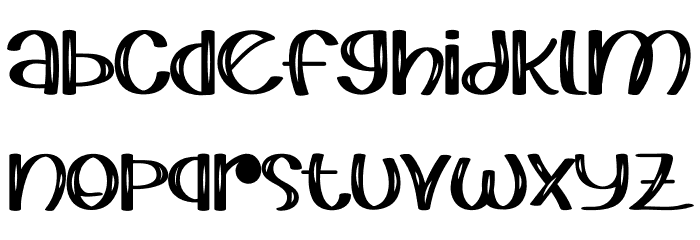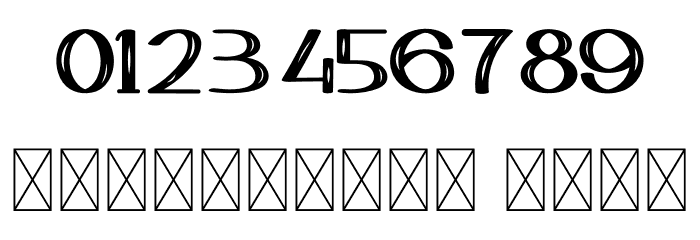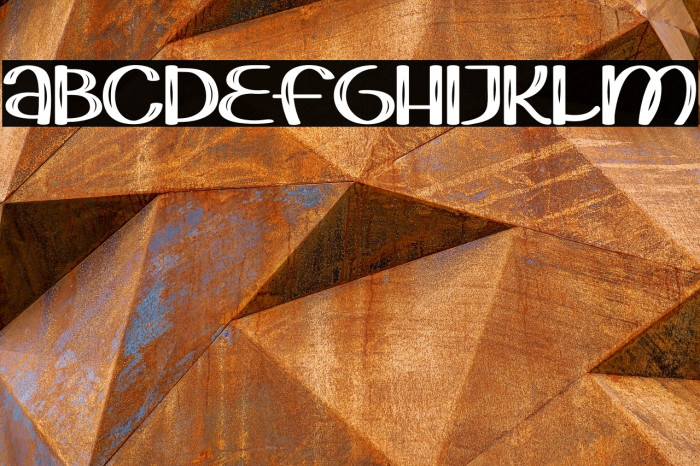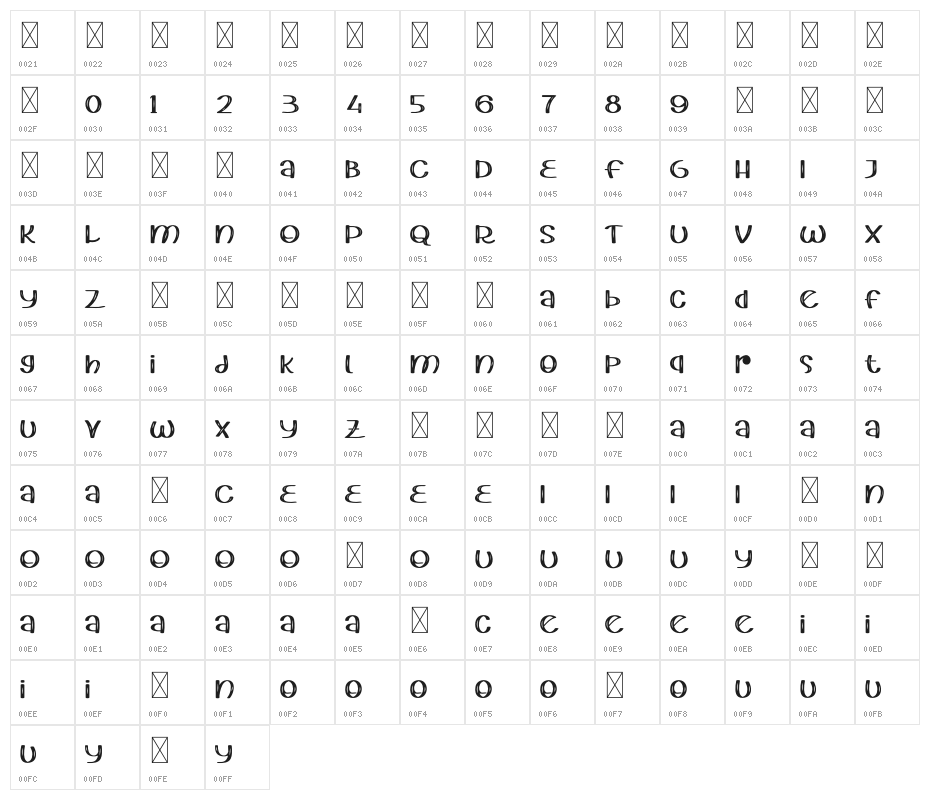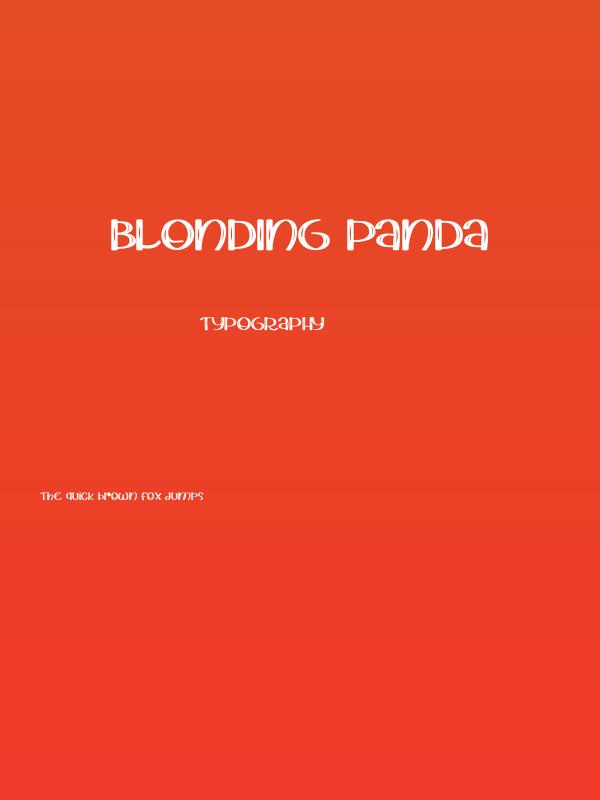
Blonding Panda Font
This font features a playful and artistic style with a unique blend of curves and angles. The letters are bold and have a whimsical flair, characterized by their thick strokes and rounded edges. The uppercase and lowercase letters maintain a consistent style, with a slight slant that adds a dynamic feel. The numbers are equally bold and maintain the same playful aesthetic. The font lacks traditional serifs, giving it a modern and clean appearance. It is well-suited for creative projects that require a touch of fun and personality.
A playful, bold font with rounded edges and a whimsical style.
- Font: Blonding Panda
- Proposed Projects: Ideal for children's books, creative posters, playful branding, and artistic invitations.
- Overall Style: Playful, Modern